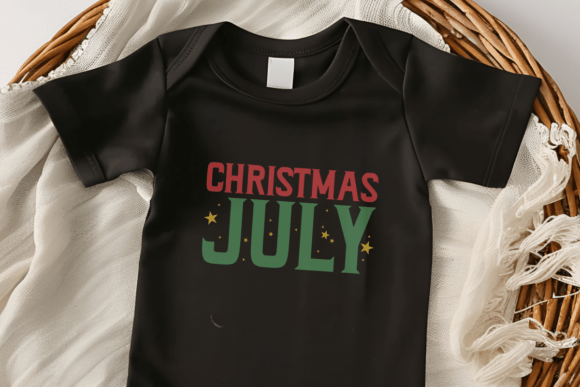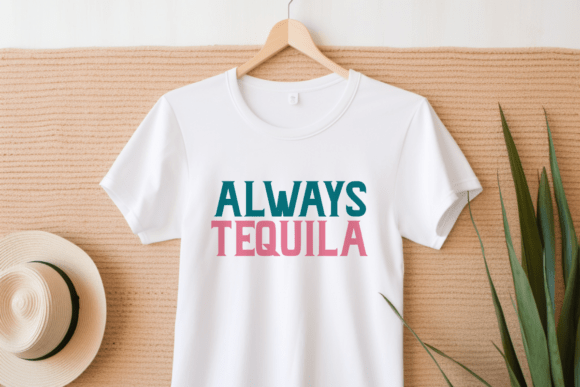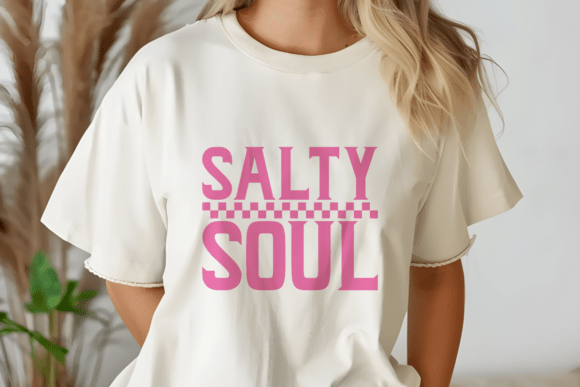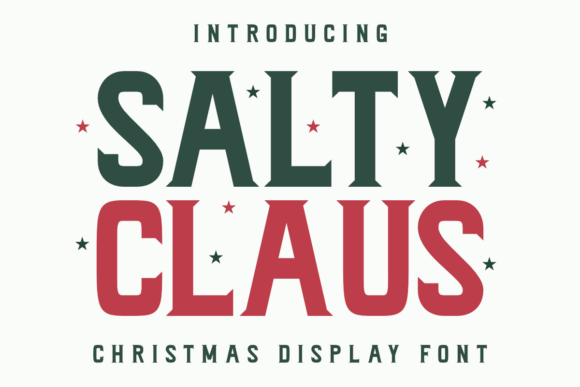
Introduction to Salty Claus Font
Salty Claus is a bold and festive Christmas display font that brings jolly vibes and a touch of playful sarcasm to your holiday designs.
Inspired by retro slab serif lettering with a modern twist, this font is perfect for holiday-themed projects and seasonal products Whether you’re creating funny Christmas quotes, sublimation t-shirts, Cricut crafts, laser cut, or festive mugs for Etsy, Salty Claus is ready to deliver charm and holiday cheer with a little attitude.